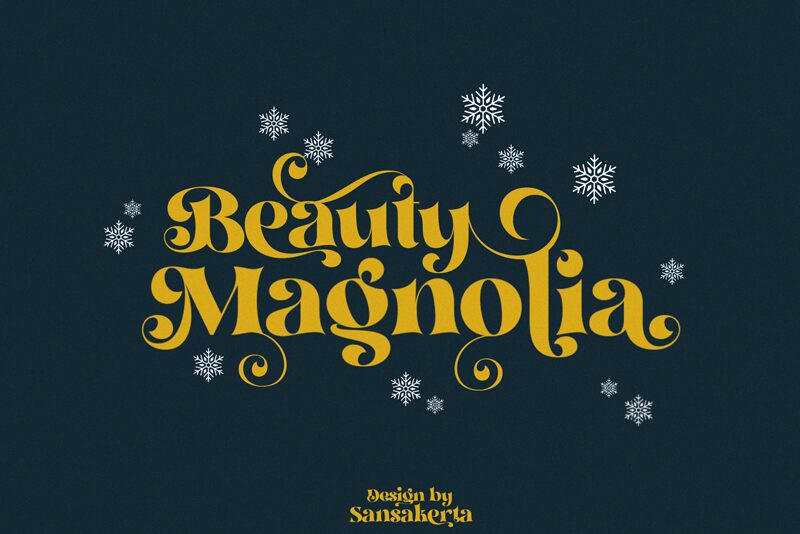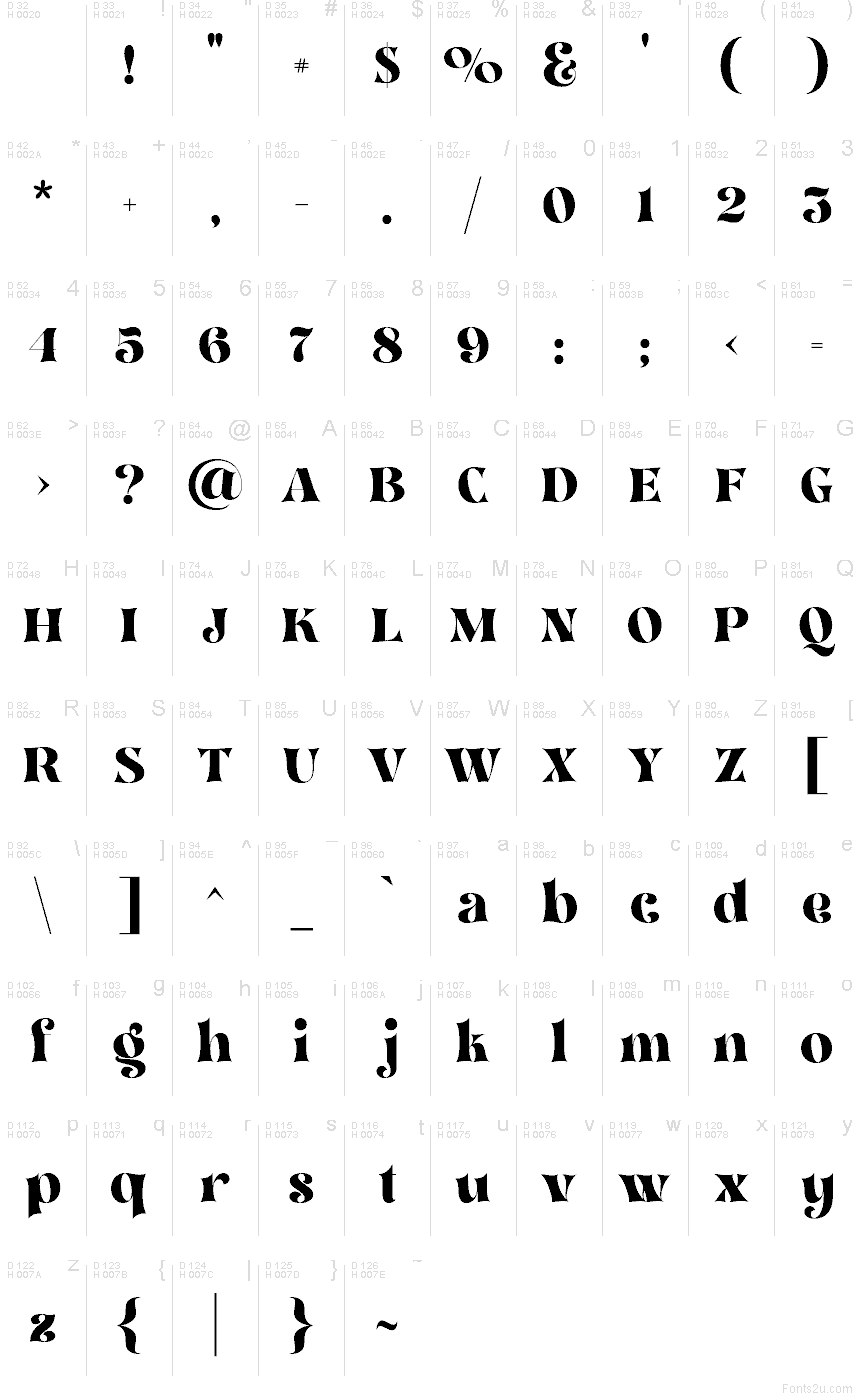
BeautyMagnolia-Regular
Beauty Magnolia font by Sansakerta is a free decorative serif typeface with lush, petal-like curves and inky, sculpted strokes. Each letter feels hand-cut and theatrical, with swelling shapes that bloom outward, then pull back into tight, elegant joins, creating a rich, almost velvety texture on the page. It’s bold, romantic, and a little dramatic—like a vintage perfume label turned into a full alphabet.
Using Beauty Magnolia, headlines and logotypes instantly gain a couture, editorial flair that’s hard to ignore. This free font shines on wedding stationery, boutique branding, packaging, beauty products, book covers, and statement social graphics. Pair it with a clean geometric sans at smaller sizes to keep layouts readable while letting Beauty Magnolia handle the drama in your largest titles.